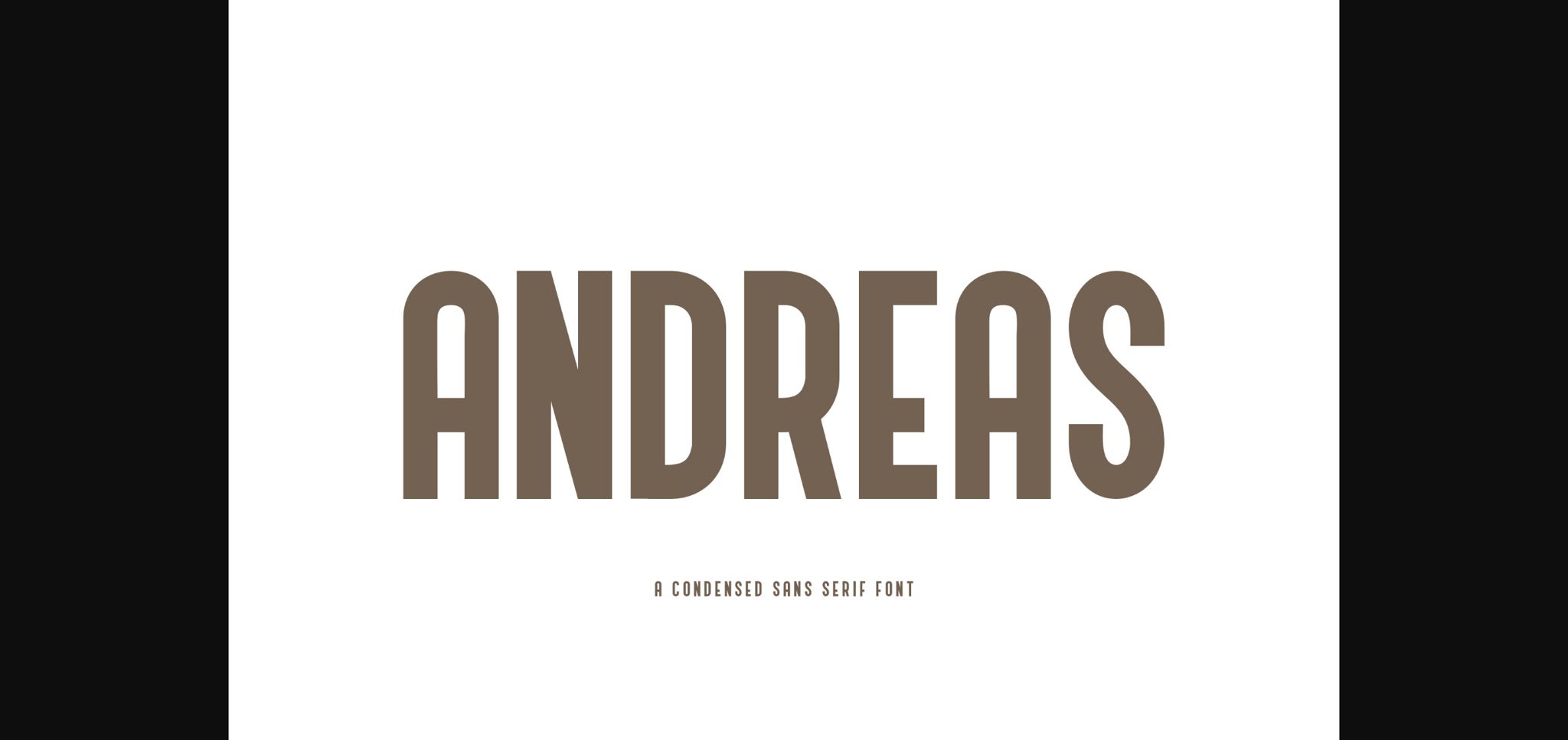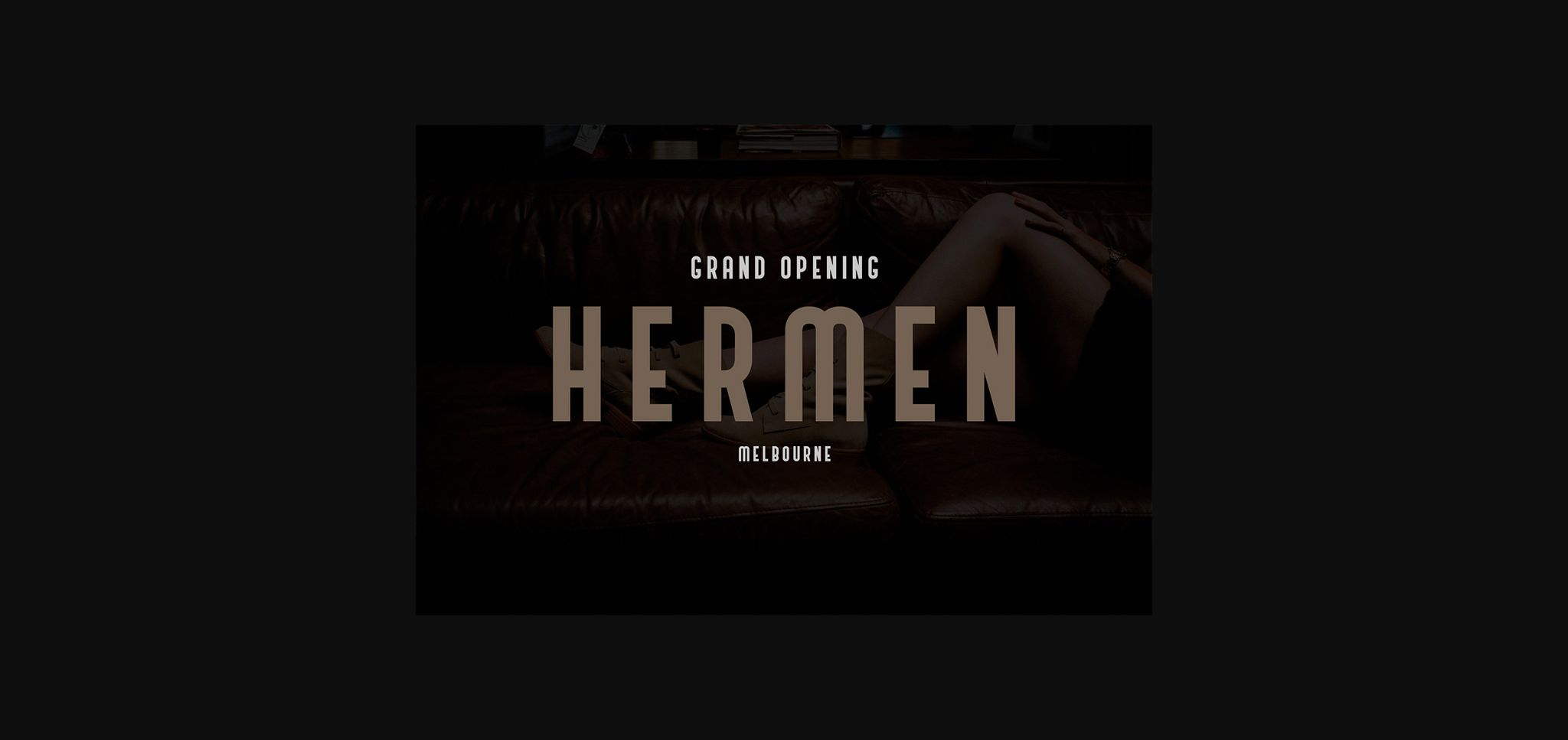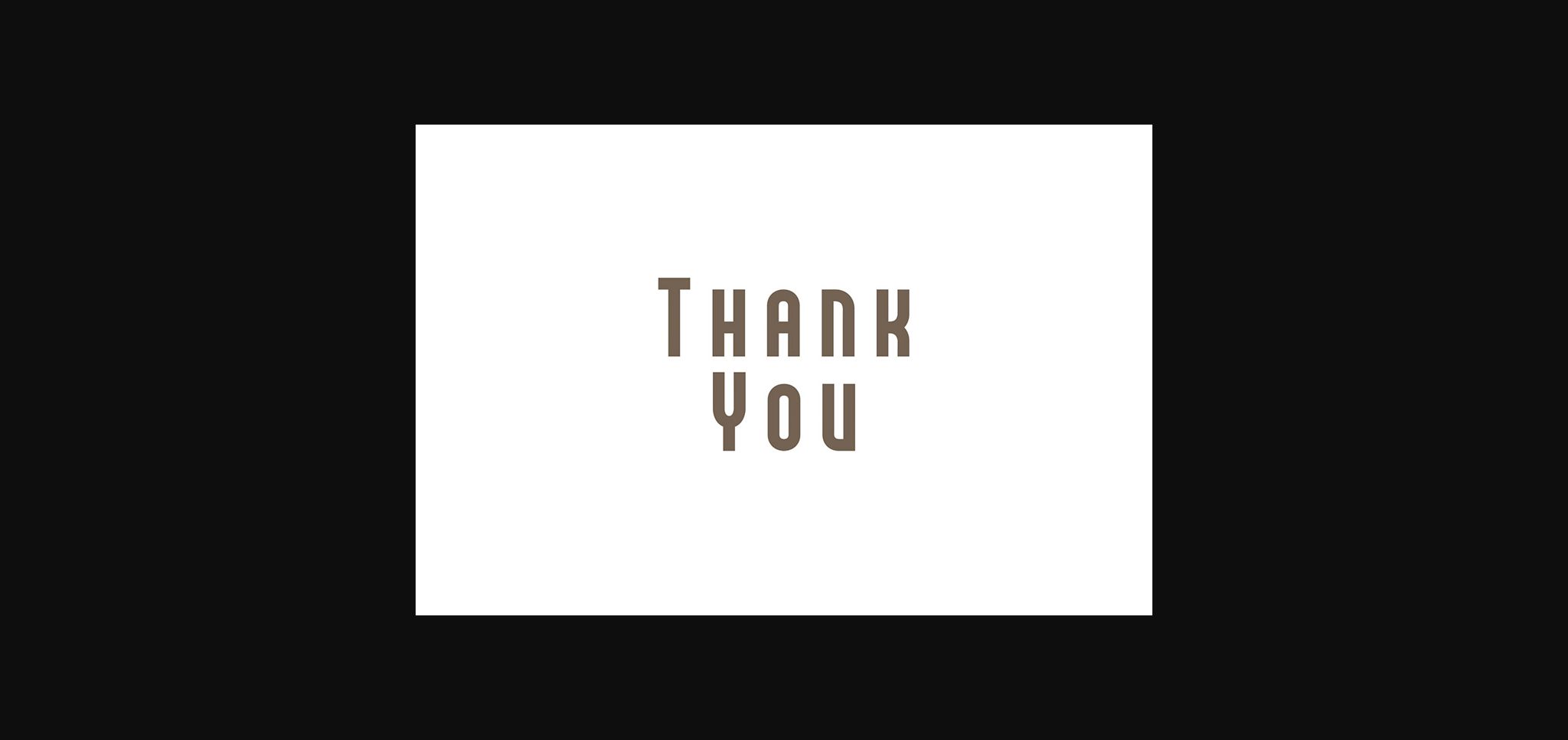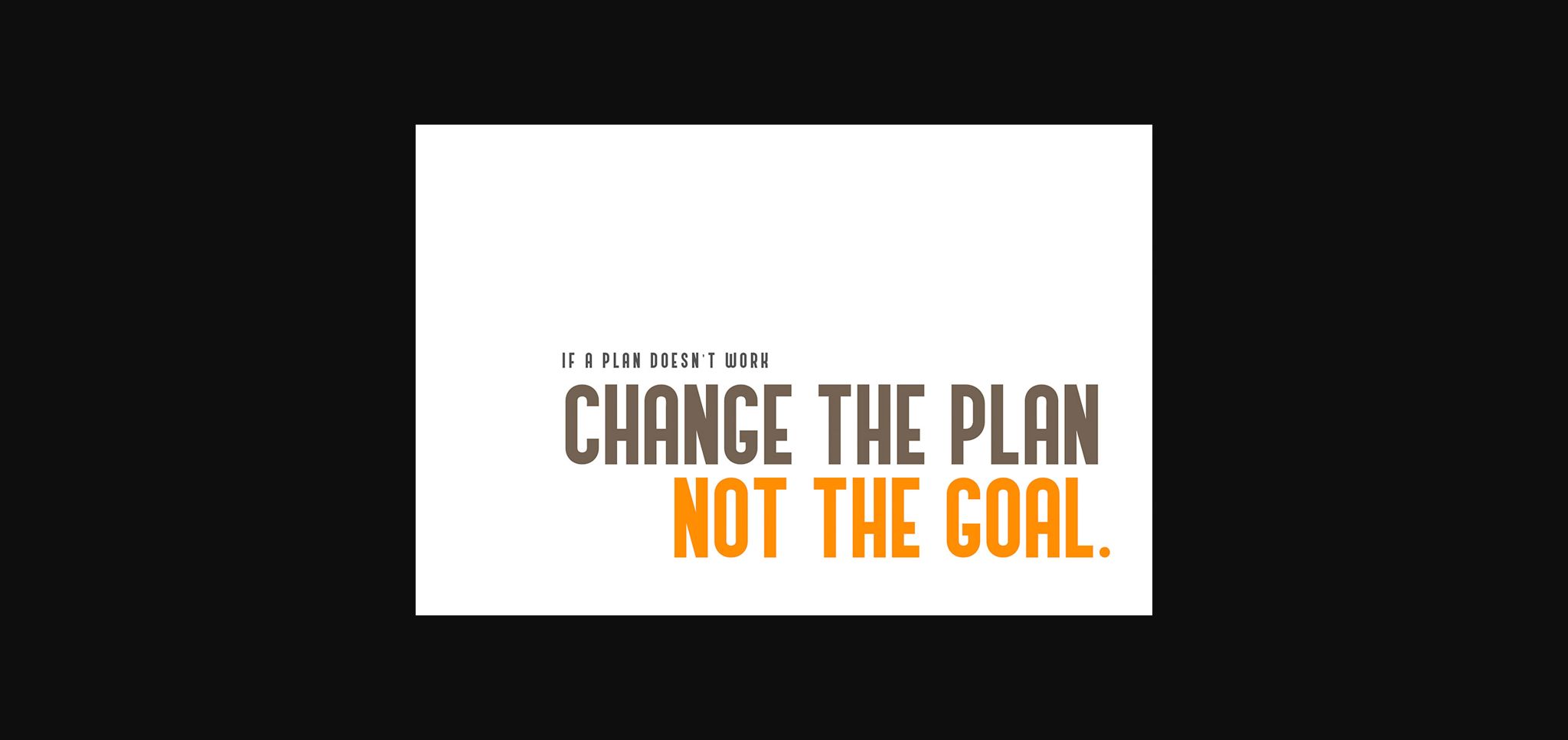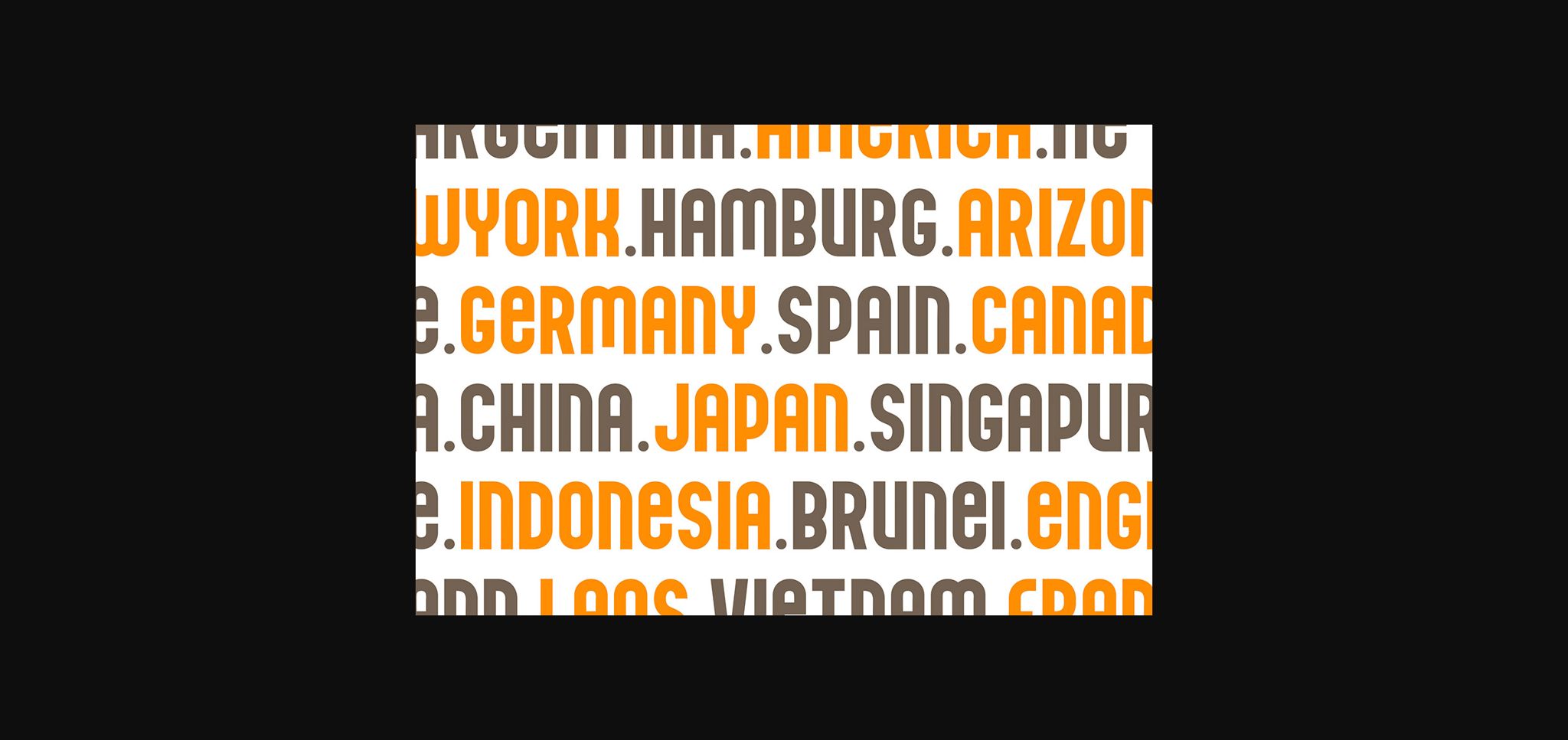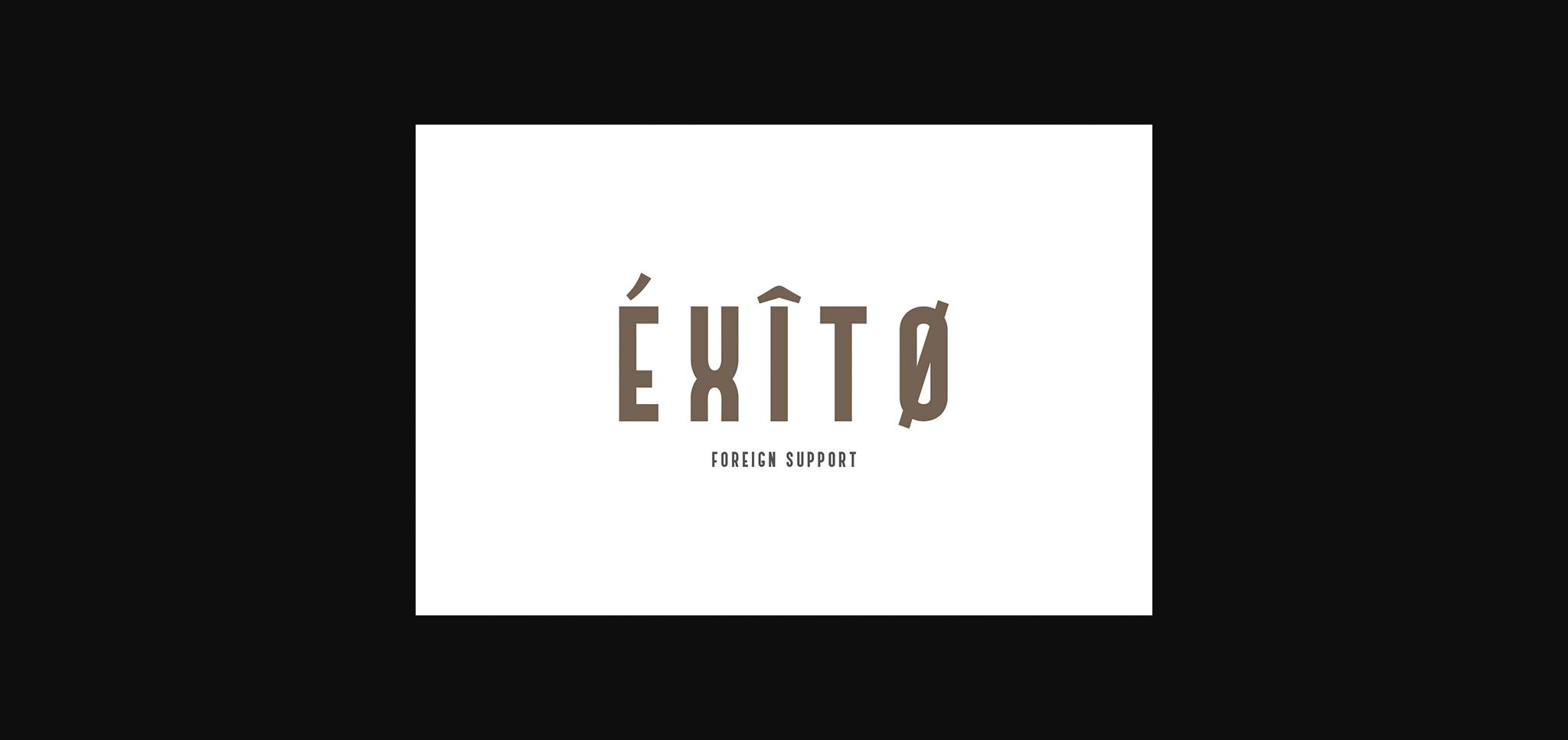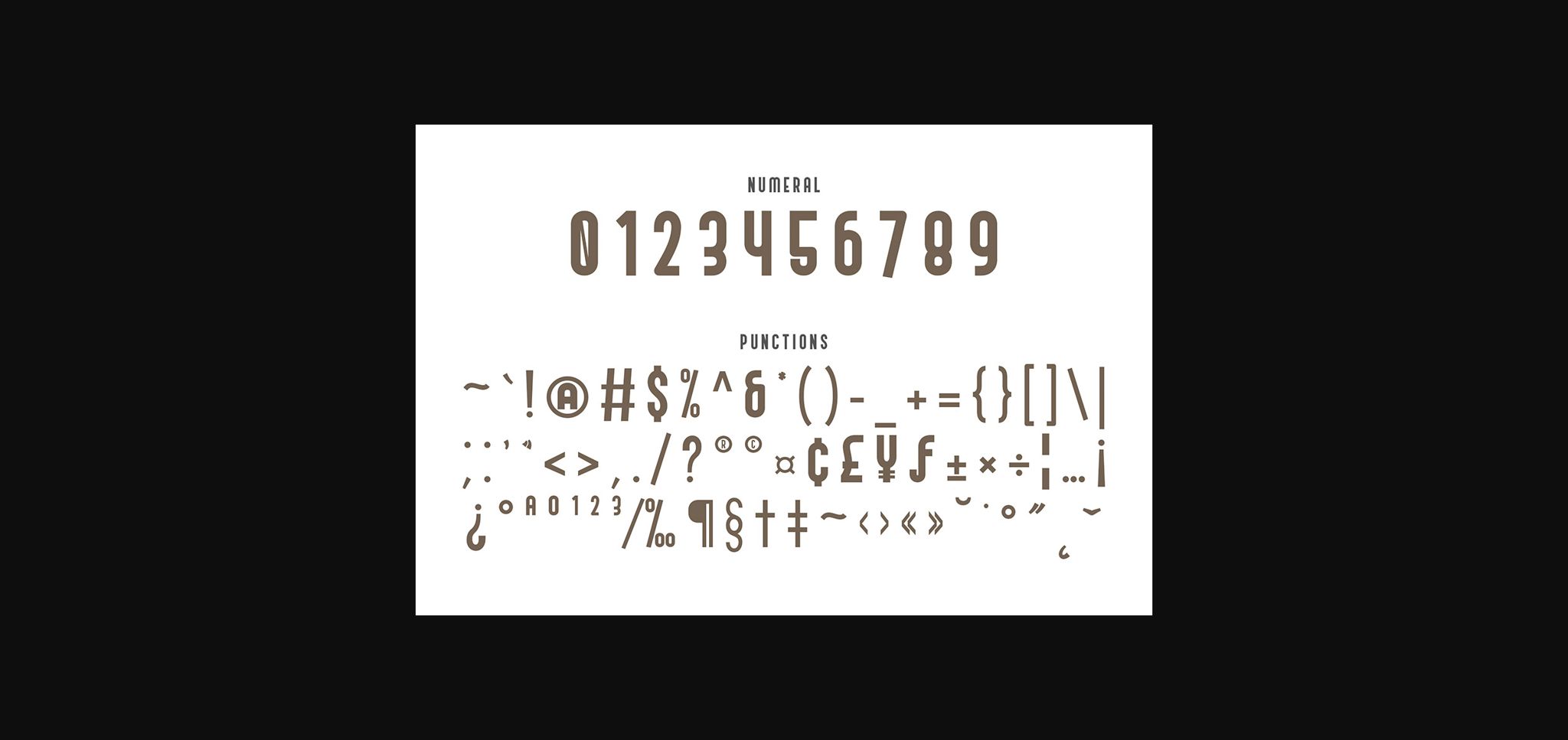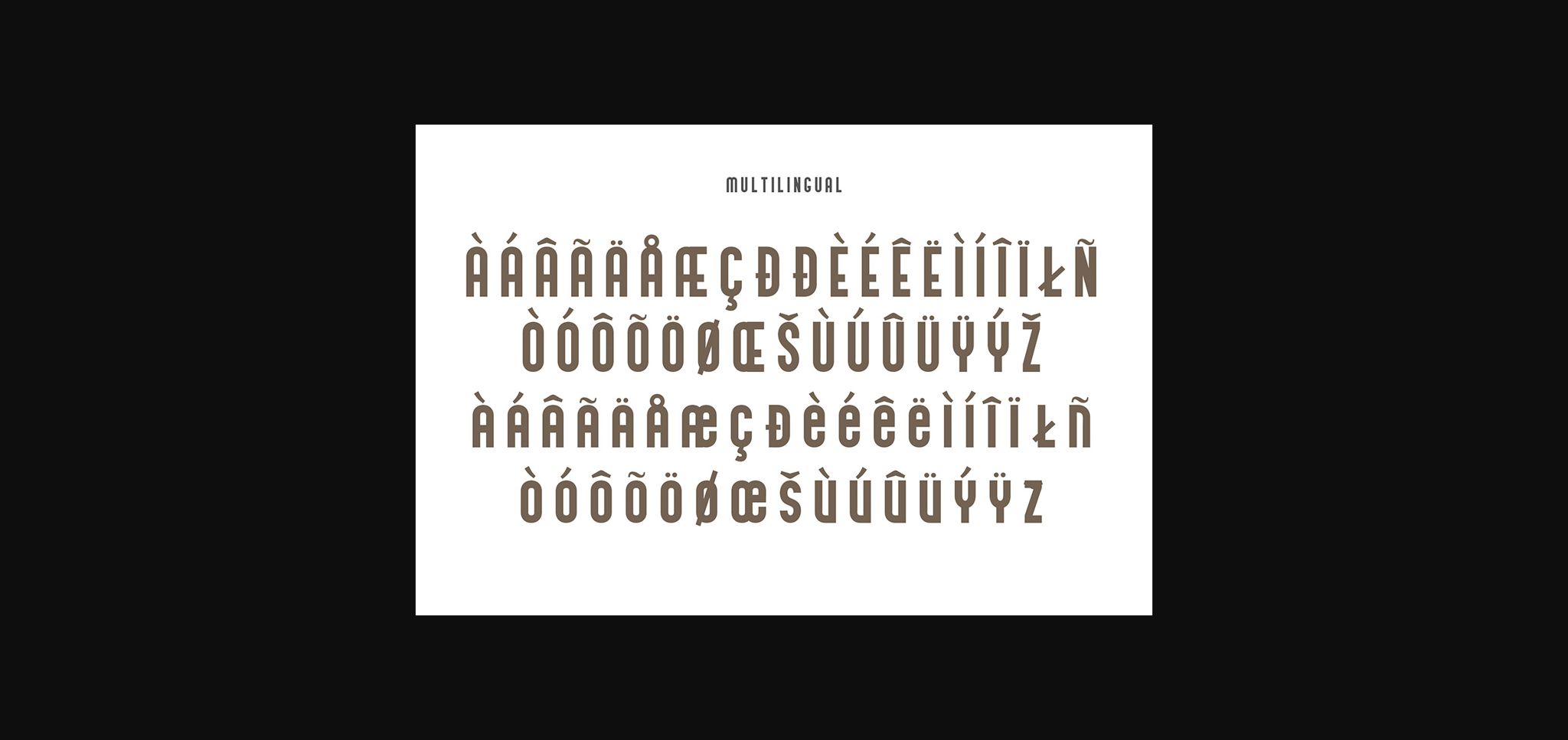
Andreas Font
About Andreas Font
Andreas is a condensed sans serif font. It has an elegant and modern that makes it perfect for fashion, apparel projects, signature, logos, branding, magazines, social media, & advertisements and much more!